Font Typesetting Function 17: “Lining Numbers and Old Style Numbers (lnum/onum)”
Lining numbers with arranged height are used in the most Japanese fonts. In contrast, numbers that can have unevenness on the top and bottom at typesetting are old-style numbers. Old-style numbers are also called “text figures” or “lowercase figures.” As they match with lowercase letters of alphabet, they are often used in Latin typesetting texts.
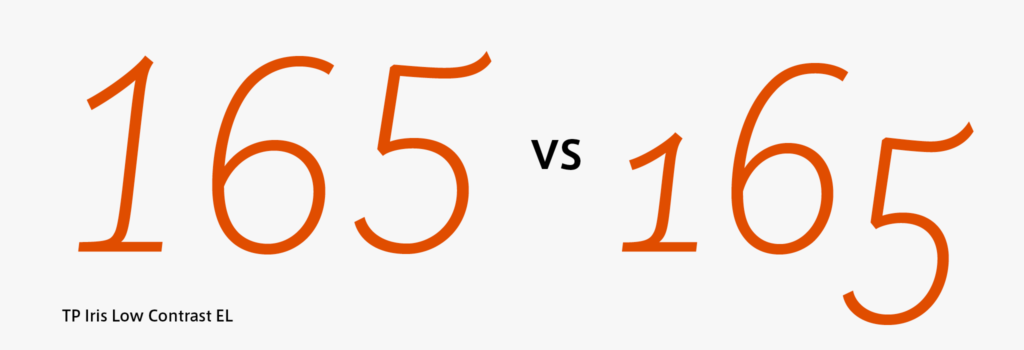
In the previous article, I talked about proportional figures (pnum) and tabular figures (tnum). Additionally providing differentiation between lining numbers (lnum) and old style numbers (onum) enables a total of four combination types (2 x 2).
In most cases, the default numbers in Japanese fonts are tabular lining numbers. However, the default numbers are proportional lining numbers in TP Iris, as used in the figure; proportional old style numbers are prepared as an option.